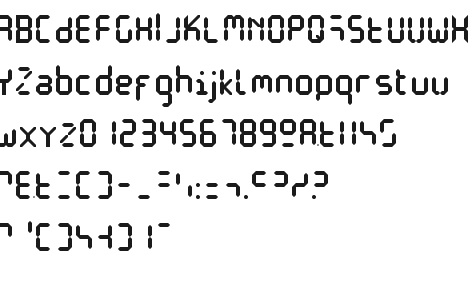
There are plenty of LCD/LED segment fonts on FontStruct but this one is very well developed.
Congratulations, the TP honours a novel design of segment font.